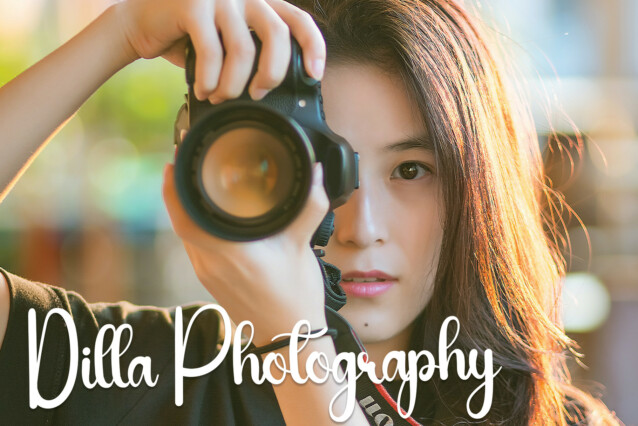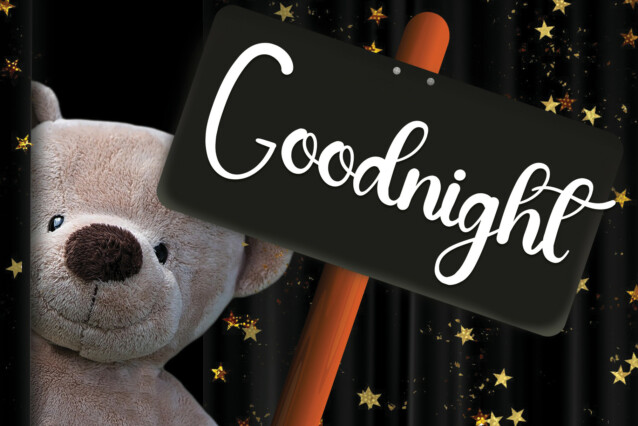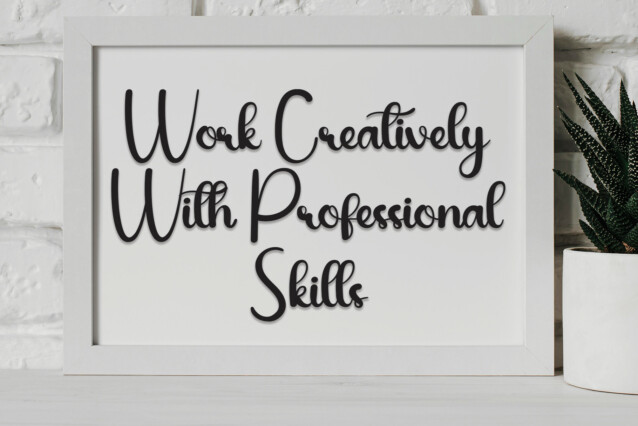
Magnolia Handwritten Font
Magnolia Handwritten Font is a cool and relaxed handwritten font. This versatile font has a wide spectrum of applications ranging from greeting cards to headlines and is guaranteed to add a neat and natural feel to your next project!